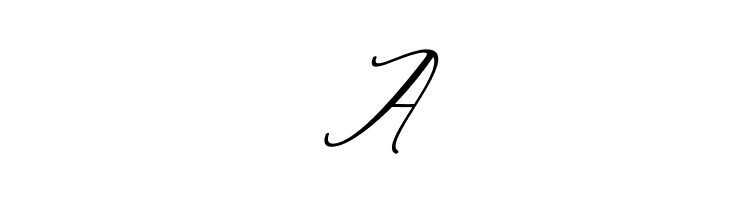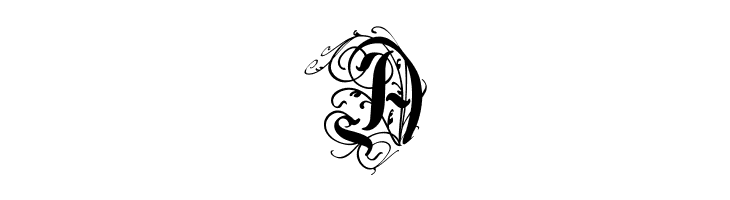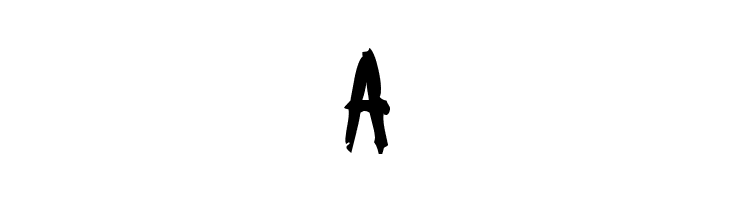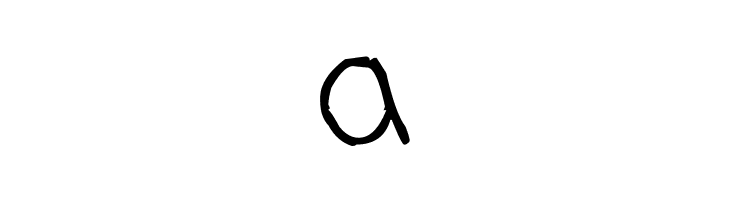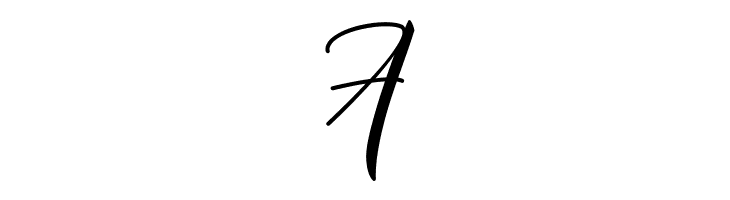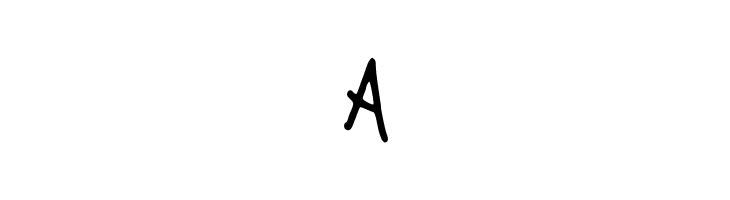
A bold, cursive italic font with a flowing, handwritten style.
A playful, rounded font with bold, smooth curves.
A fluid, cursive font with a handwritten charm and seamless character connections.
A playful, rounded typeface with a bold and friendly appearance.
A playful, informal handwritten font with a casual and approachable style.
A playful, rounded font with a whimsical and friendly style.
A bold, gothic-inspired font with sharp serifs and intricate detailing.
A bold, brush-style font with sharp, angular strokes and high contrast.
A gothic, medieval-inspired font with sharp, angular lines and unique letterforms.
A bold, italic font with gothic influences and sharp, angular serifs.
A bold, angular font with an oblique style, perfect for impactful designs.
A bold, brush-stroke font with an aggressive, hand-drawn aesthetic.
A bold, gothic font with skull-themed letters and dramatic flair.
A bold, distressed font with a grunge texture and rugged appearance.
A bold, gothic Blackletter font with intricate, angular designs.
A grungy, distressed font with a chaotic, hand-drawn style.
A playful, casual handwritten font with irregular, organic letterforms.
A bold, geometric font with a futuristic and industrial design.
An ornate, high-contrast font with decorative flourishes and a regal style.
An ornate, decorative font with intricate swirls and flourishes.
A rugged, distressed font with a rustic, hand-crafted feel.
A bold, geometric font with a retro-futuristic style.
A bold, geometric font with playful and modern design elements.
A dynamic handwritten font with elegant, flowing cursive strokes.
A playful, handwritten font with smooth, rounded edges and a casual style.
A charming and elegant script font with fluid, connected letterforms.
A graceful, italic script font with high contrast and flowing connections.
A bold, modern font with a geometric and futuristic style.
A dynamic and elegant script font with fluid, cursive strokes.
A bold, decorative serif font with a shadow effect, ideal for vintage designs.
A modern, geometric sans-serif font with a clean and minimalist design.